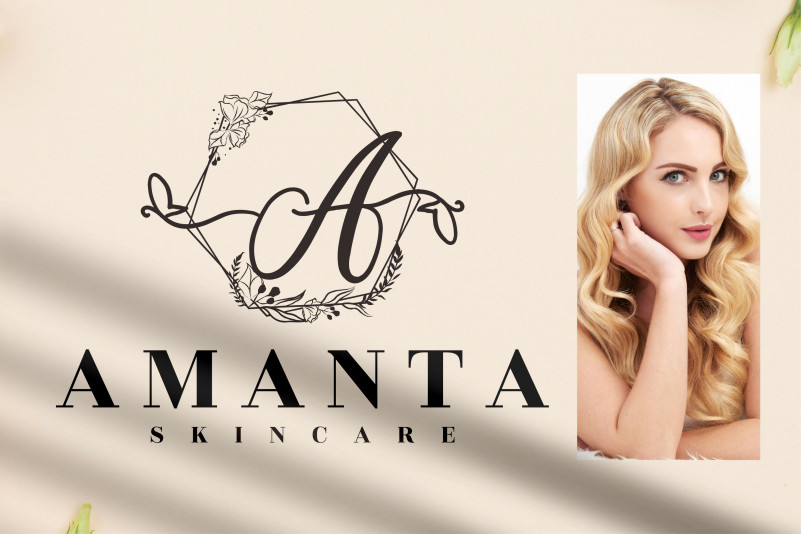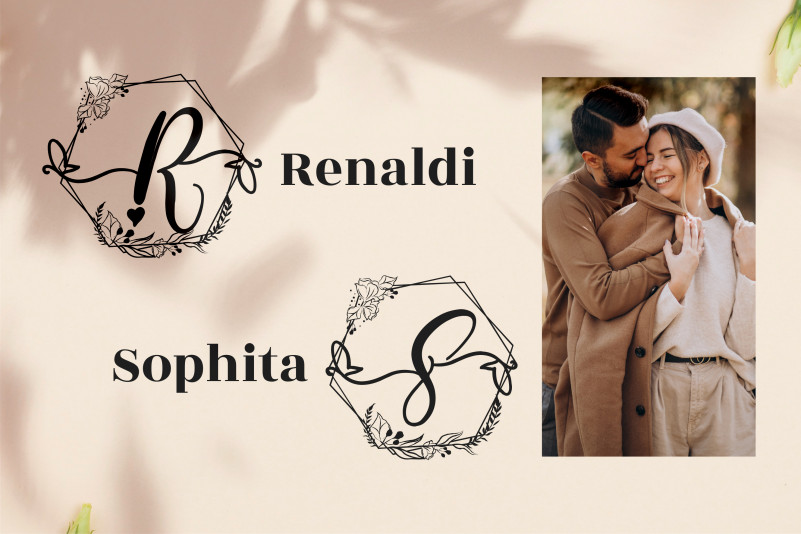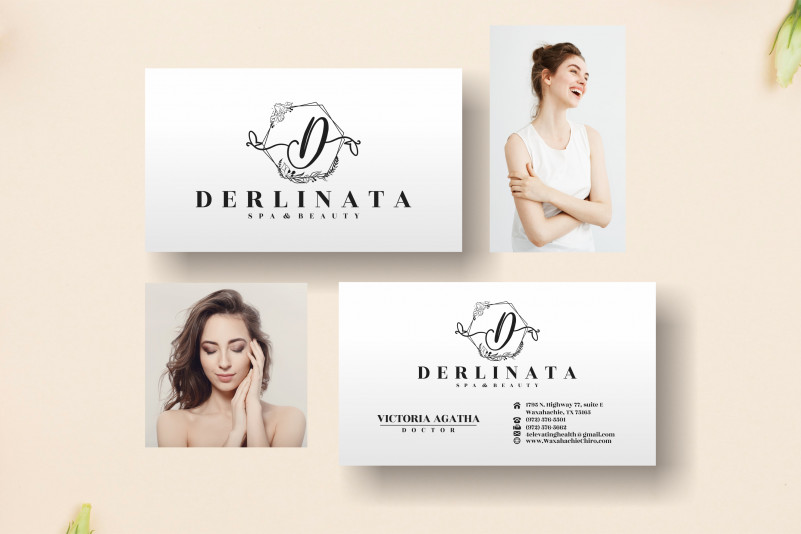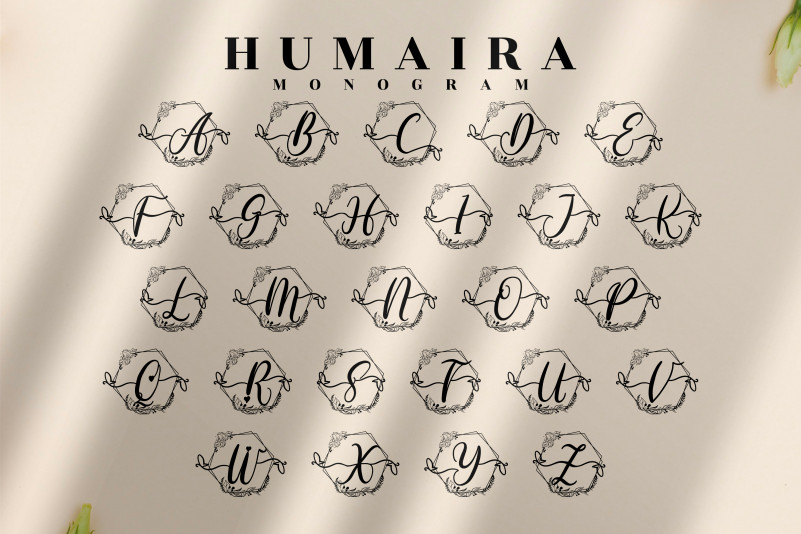
Humaira Monogram Font
Humaira Monogram Display Font
This is an elegant decorative font, featuring luxury leaf ornaments. Fall in love with its authentic feel and use it to create gorgeous wedding invitations, beautiful stationary art, eye-catching social media posts, logo design, and cute greeting cards.